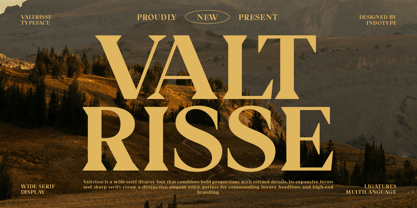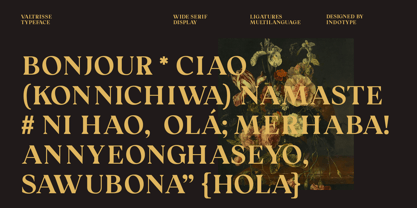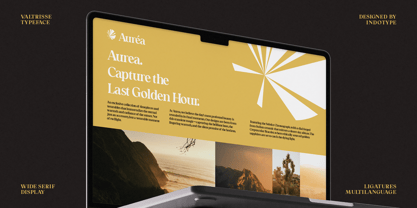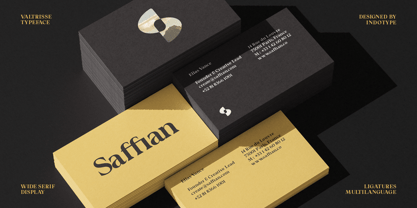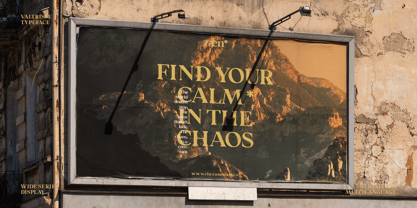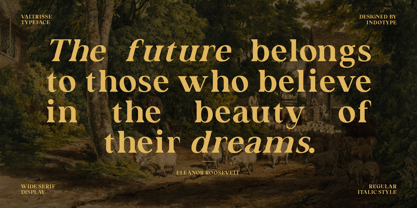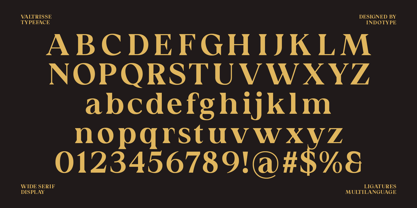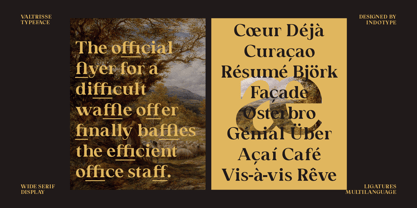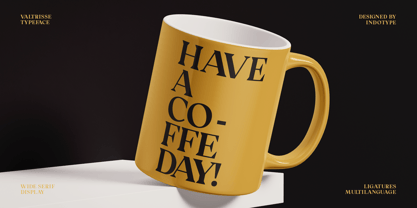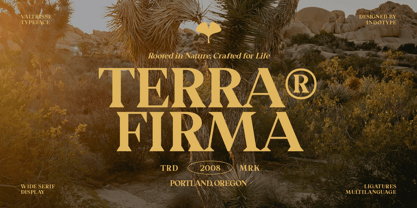
IT Valtrisse
by Indotype
The IT Valtrisse Font Family was designed by Dede Kurniawan and published by Indotype. IT Valtrisse contains 2 styles and family package options. More about this family
Valtrisse is a wide serif display font that blends bold proportions with refined elegance. Characterized by expansive letterforms, tall stems, and sharp, confident serifs, Valtrisse captures a balance between timeless sophistication and commanding modern presence. Designed to evoke a sense of grandeur, Valtrisse’s wide stance and clean precision make it an excellent choice for luxury branding, editorial titles, packaging, and high-end advertising. Each curve and serif detail has been carefully refined to ensure both impact and harmony across all caps compositions. The typeface includes ligatures and multilingual support, providing versatility for designers seeking expressive yet polished typography. Whether used for magazine headlines, logo design, or premium product branding, Valtrisse delivers an elegant, authoritative tone with enduring style.
Designers: Dede Kurniawan
Foundry: Indotype